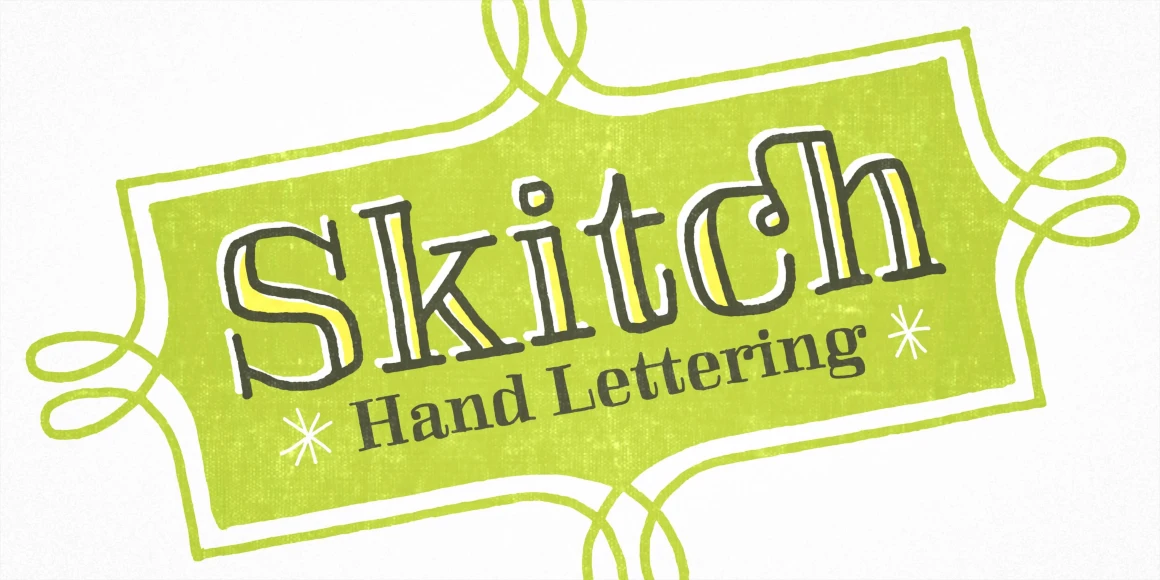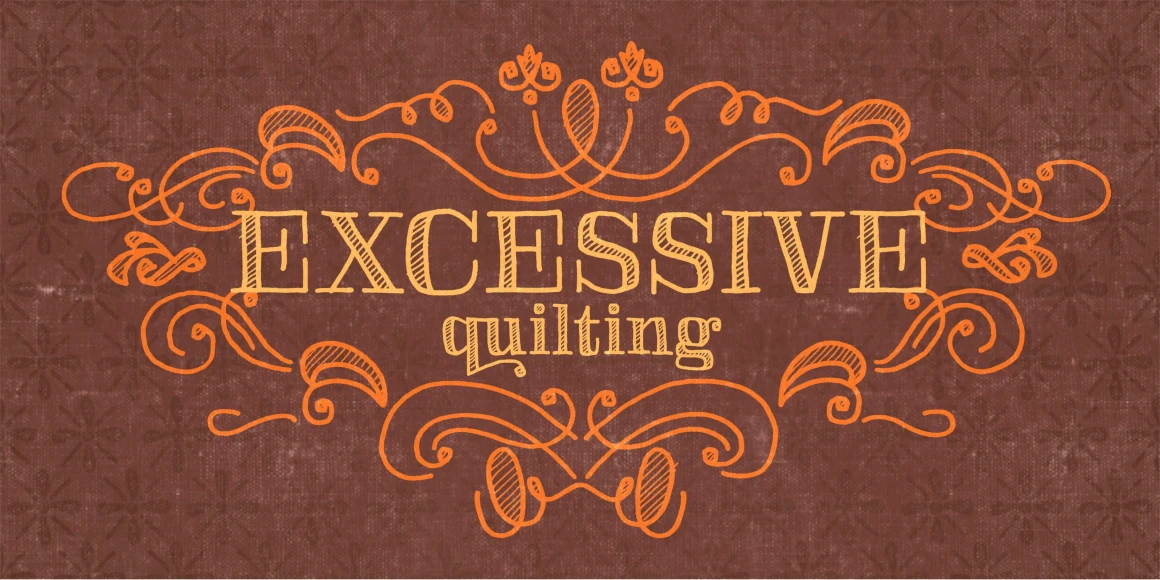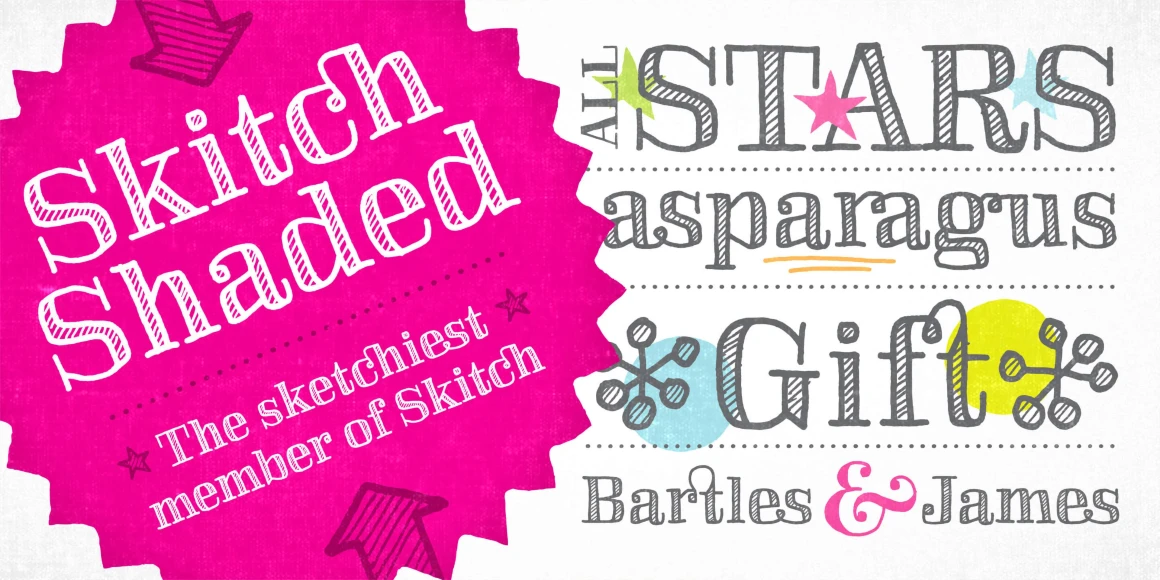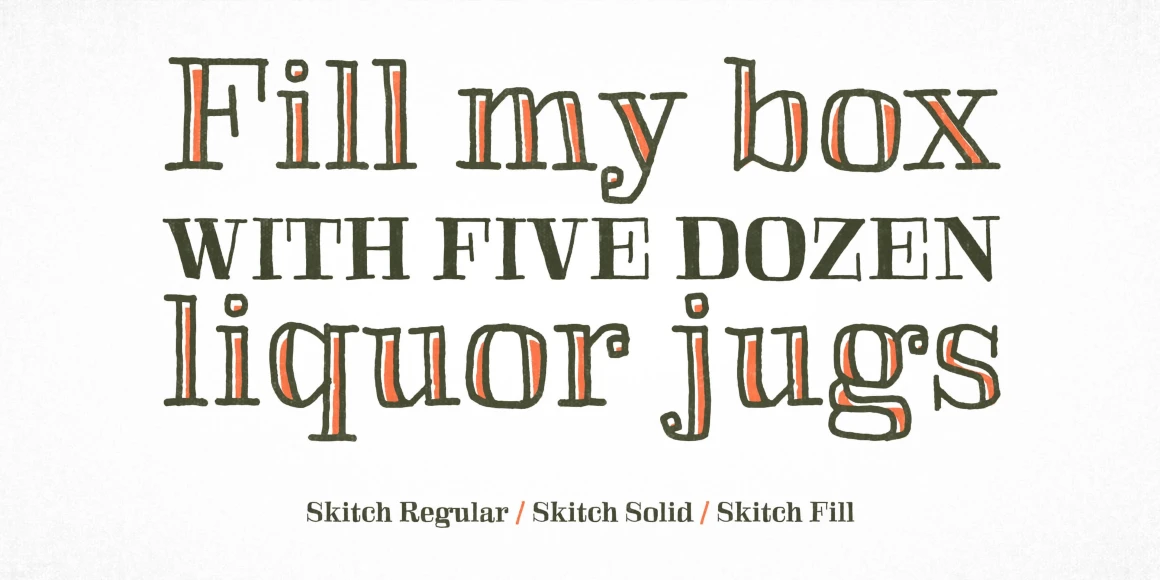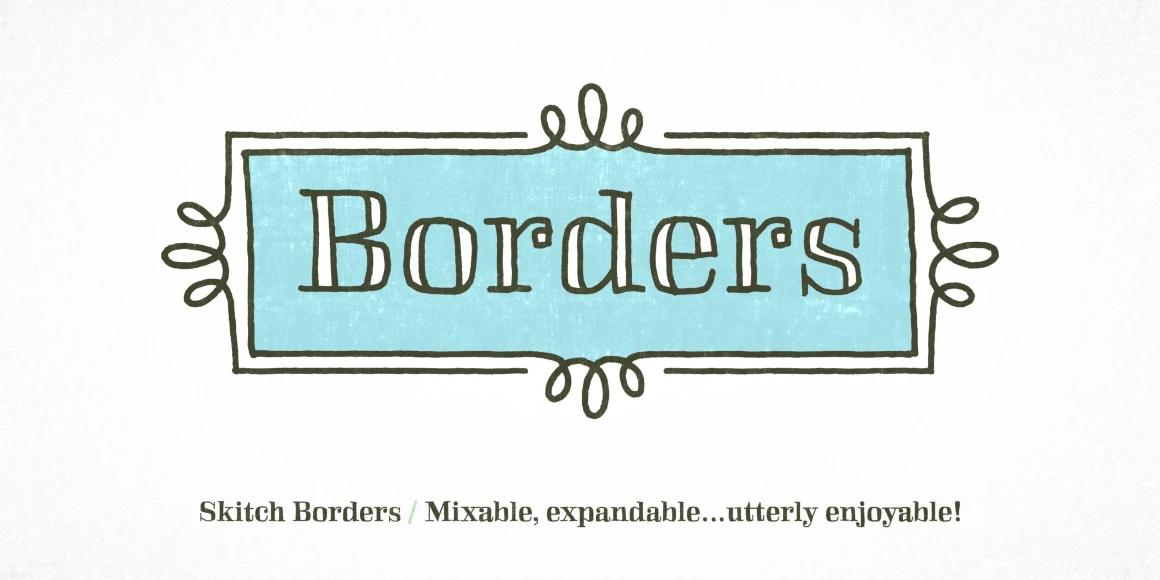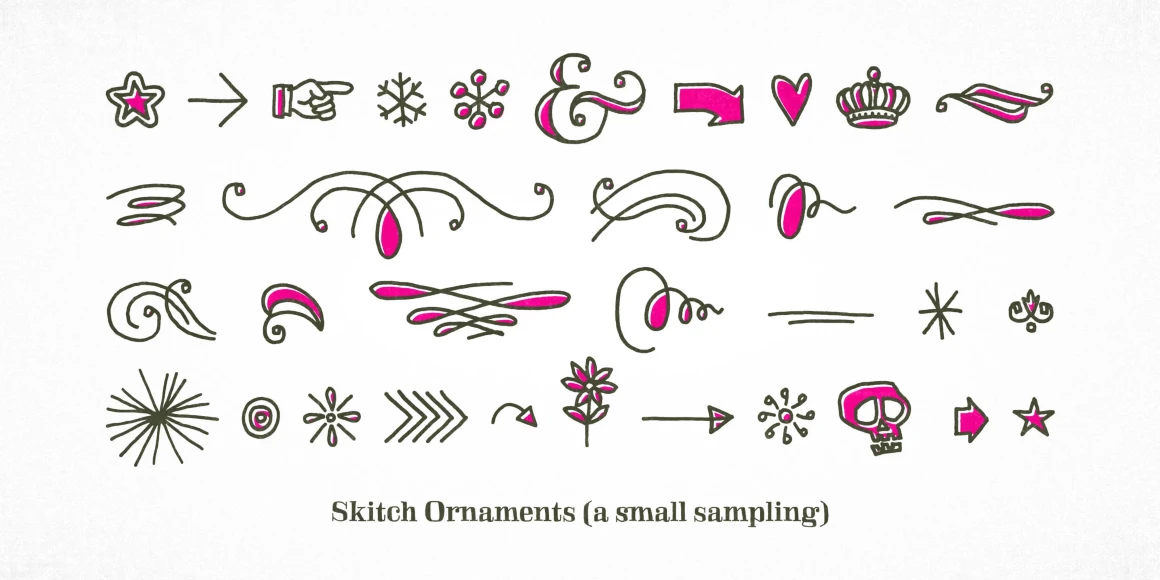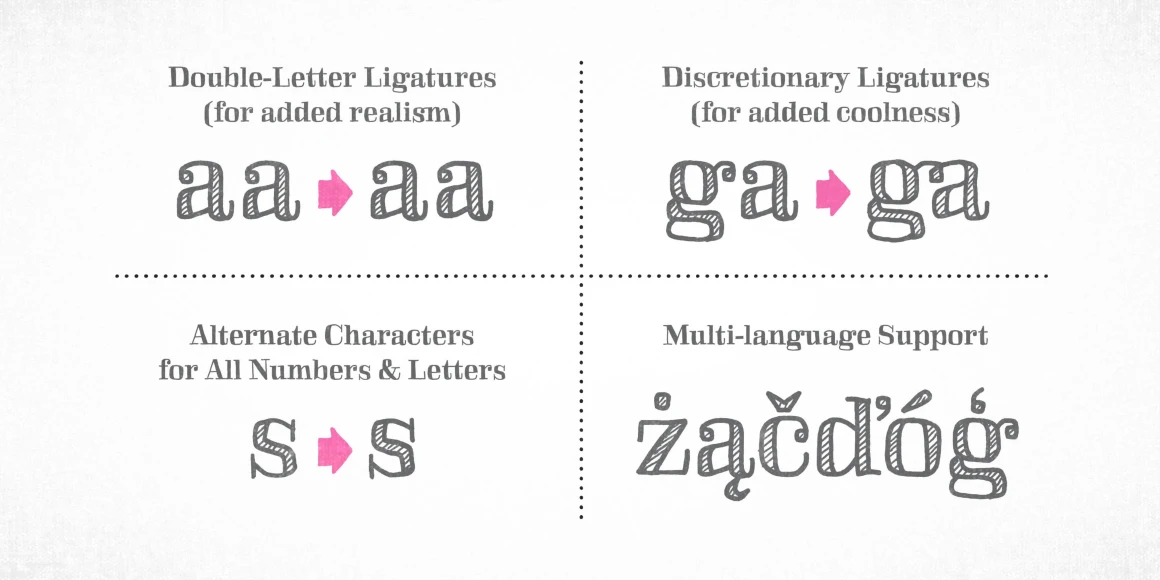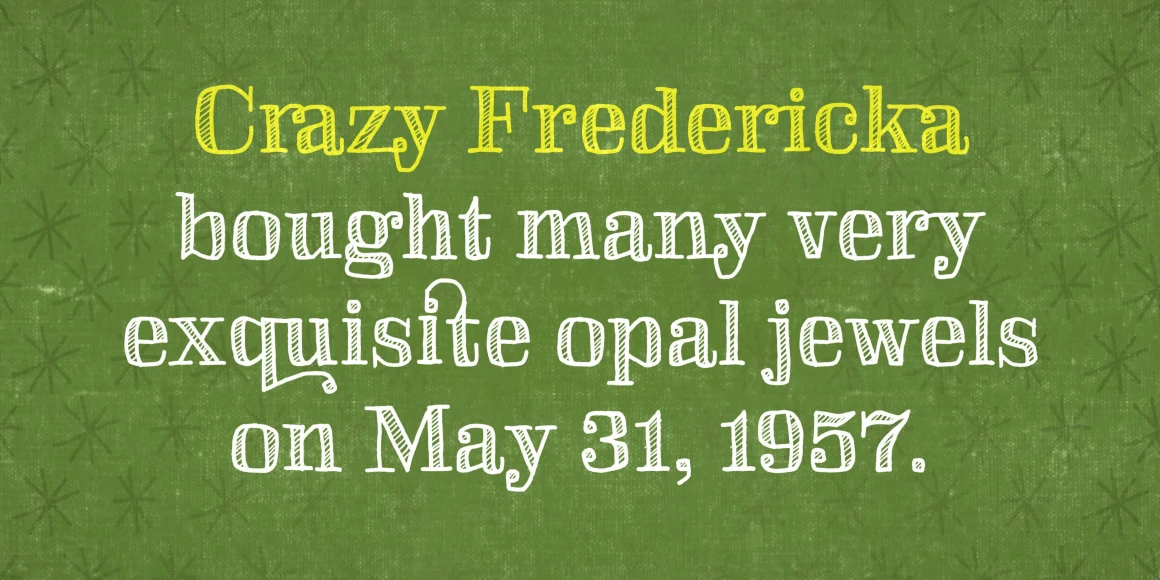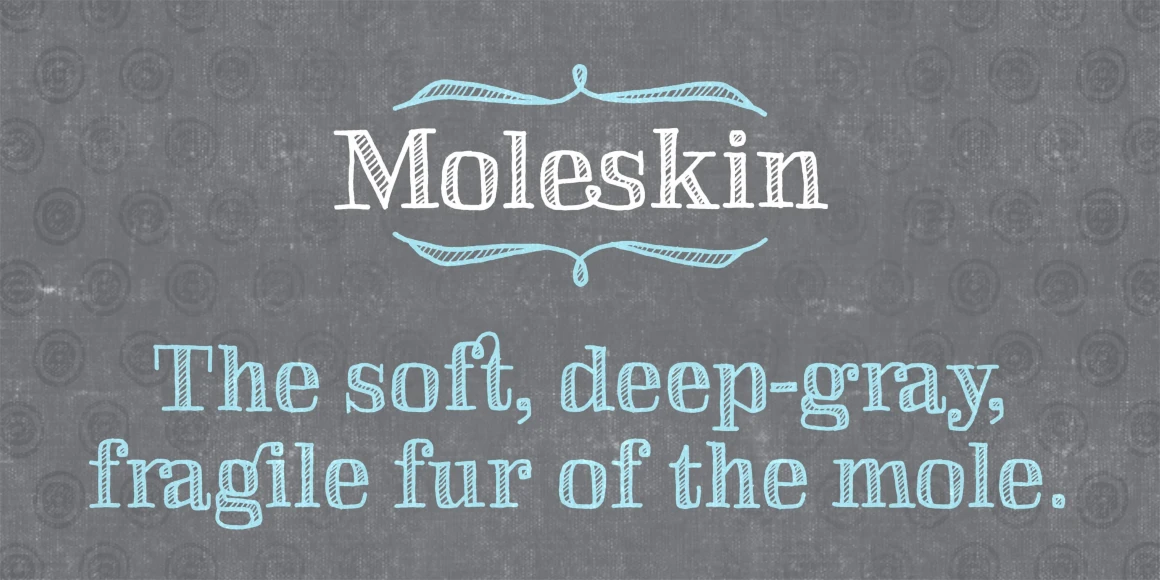
Skitch
From Yellow Design Studio
Skitch from Yellow Design Studio is a funky hand drawn serif with regular, solid, and fill options. It’s loaded with features including double-letter ligatures, discretionary ligatures and stylistic alternates, and is accompanied by an eccentric collection of ornaments and a set of expandable borders that can be mixed and matched for endless fun!
Designed by Ryan Martinson & Rhea Martinson